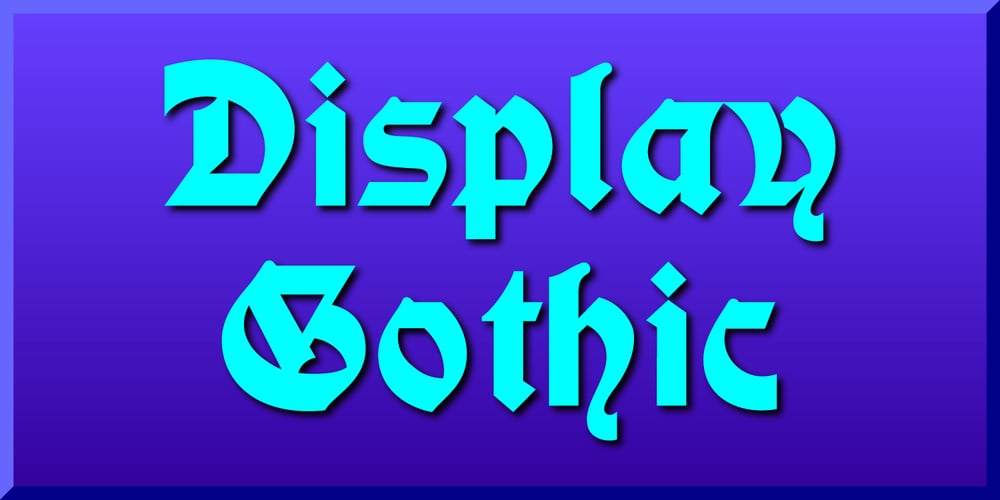
Display Gothic Font Family was designed by Gerald Gallo and published by Gerald Gallo. Display Gothic contains 1 styles and family package options. Display Gothic is a display font not intended for text use. It was designed specifically for display, headline, logotype, branding, and similar applications. Display Gothic has upper and lowercase alphabets, numbers, and punctuation.